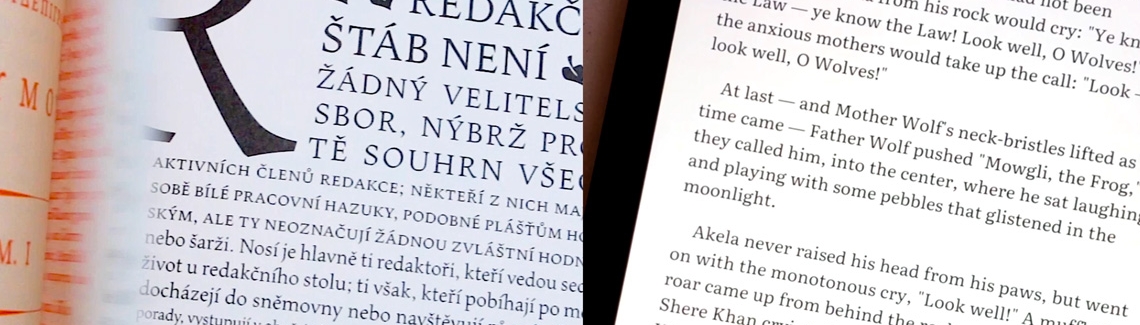
Fonts are voices
Establishing a clear brand makes you noticeable, engenders trust, and can turn a one-time buyer into a raving fan. Since text is irreplaceable for communication, and since fonts give your communication a specific voice, what voice does your brand have?